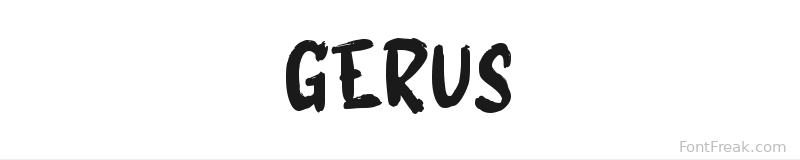
GERUS
About GERUS
Introducing the GERUS font by Wahyu Eka Prasetya, a captivating display typeface that exudes a playful yet bold character. As a standout example of a decorative font, GERUS showcases a unique blend of modern artistry and hand-drawn appeal. Its expressive letterforms feature moderate stroke weight with a slight contrast, creating a dynamic visual impact that is both engaging and approachable. The spacing is well-considered, allowing for easy readability while maintaining a lively aesthetic.
The GERUS font is particularly well-suited for a variety of creative applications. It shines in contexts such as wedding invitations, where its whimsical style can enhance the romantic theme. Additionally, it is ideal for designing eye-catching movie posters, where bold typography can draw attention and convey the film’s energy. Restaurant menus can also benefit from the GERUS font, as its unique style helps create an inviting atmosphere that resonates with diners. Content creators will find this font invaluable for social media graphics and promotional materials, adding a touch of flair that captivates audiences.
Targeting graphic designers, small business owners, and content creators alike, GERUS offers versatility and charm. Its free availability as freeware makes it accessible for various projects without compromising on quality. With its distinctive look and engaging personality, the GERUS font free download is a must-have for anyone looking to elevate their design work.
What sets GERUS apart is its ability to blend fun with functionality, making it an exceptional choice for those who wish to make a statement. Whether you’re crafting a heartfelt invitation or a vibrant ad campaign, GERUS promises to add a unique touch that speaks to your audience.